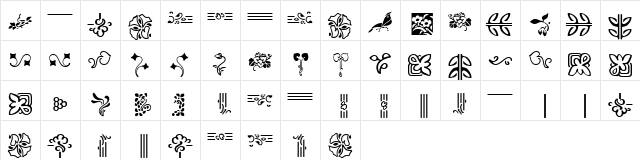
AuriolFlowers2 Roman Free Font
AuriolFlowers2 Roman
Design Context for AuriolFlowers2
AuriolFlowers2 is a composed and adaptable typeface that performs quietly and consistently across a wide range of design contexts.